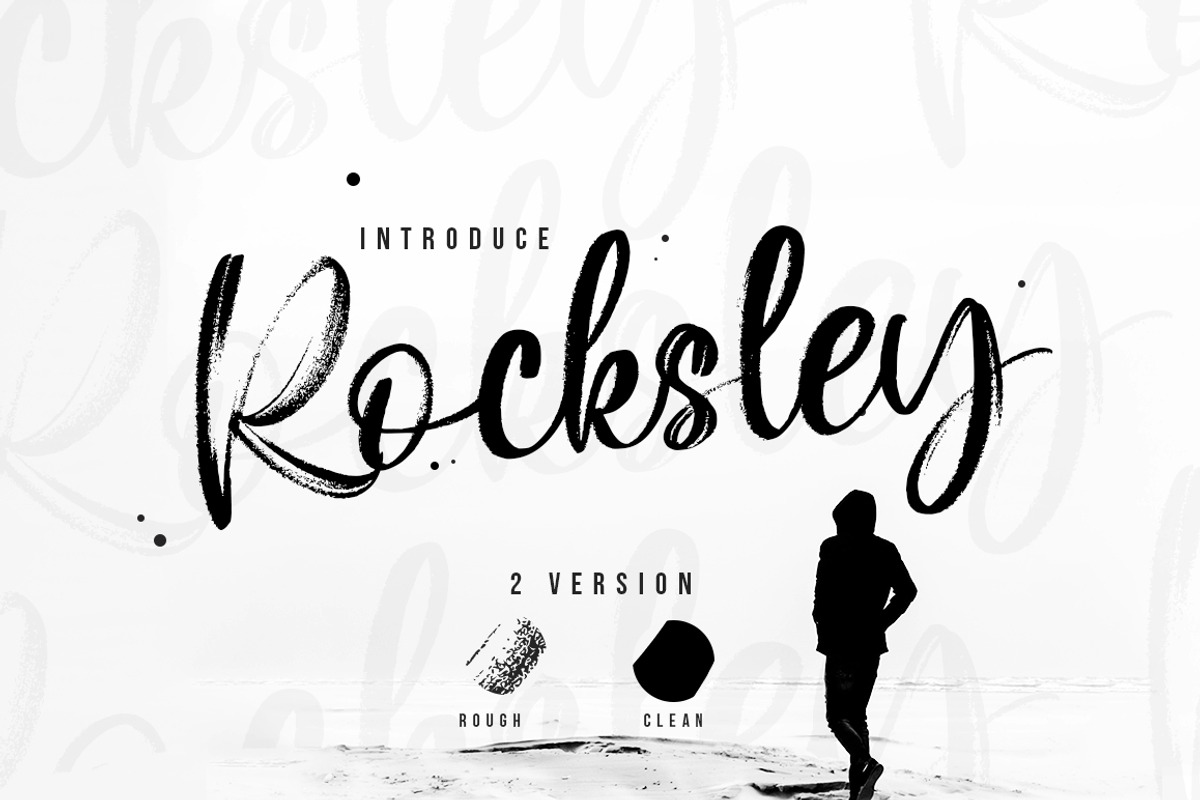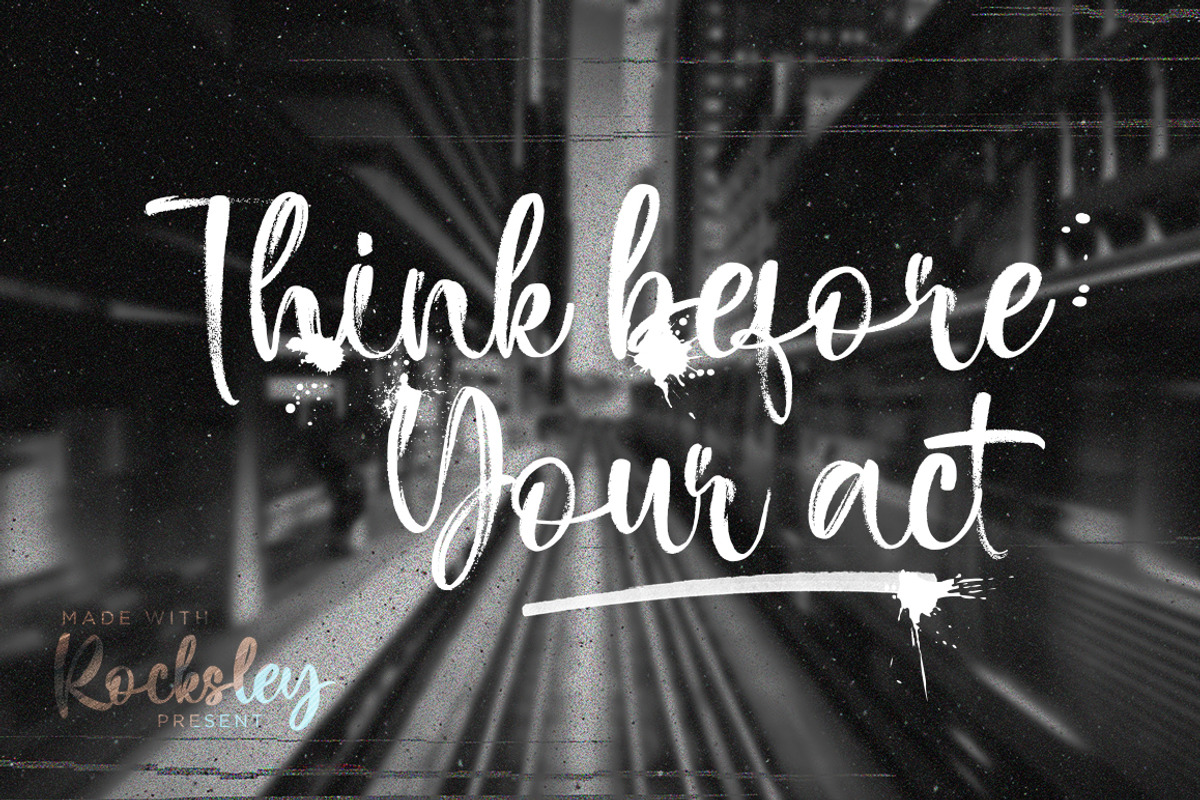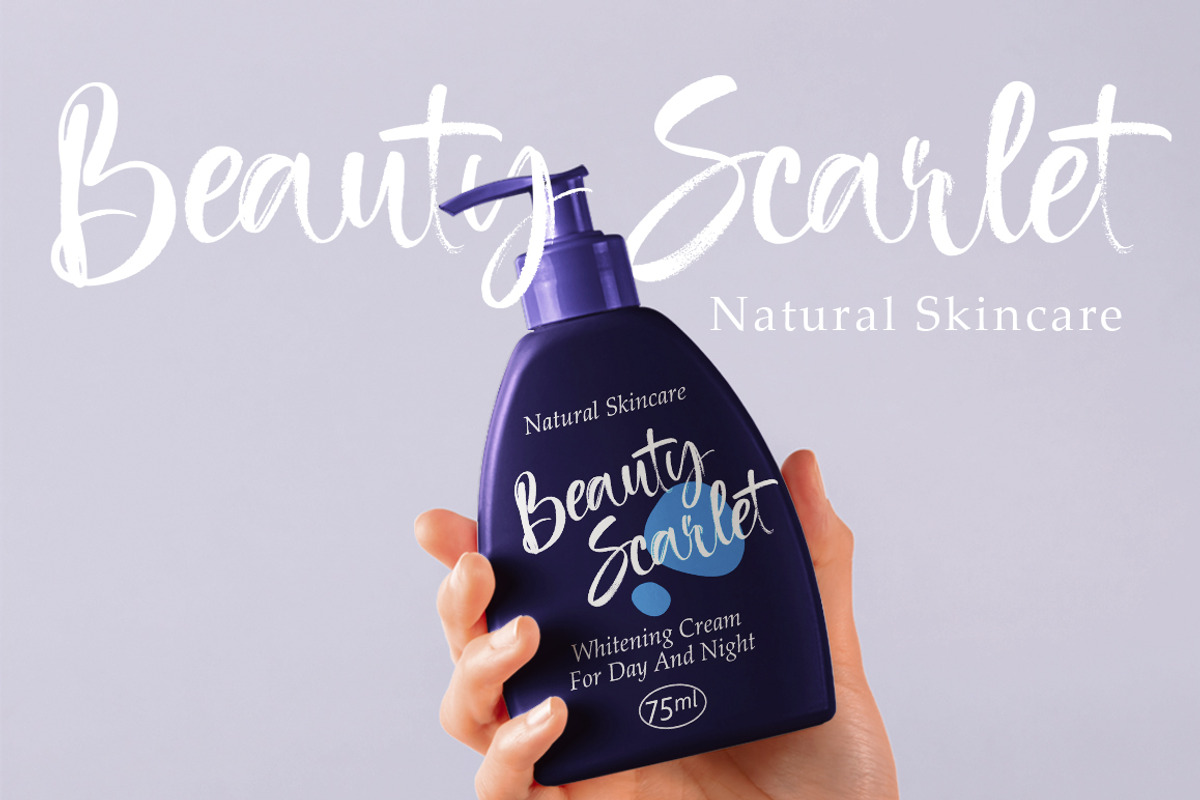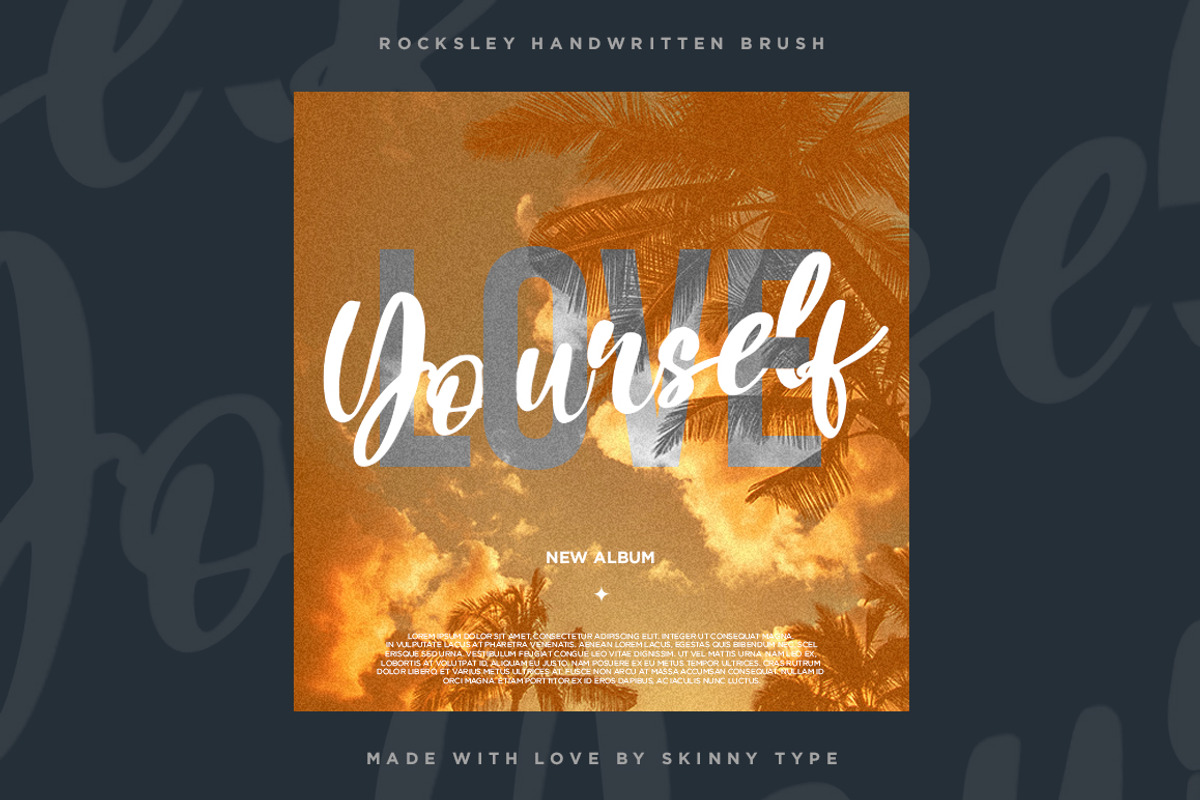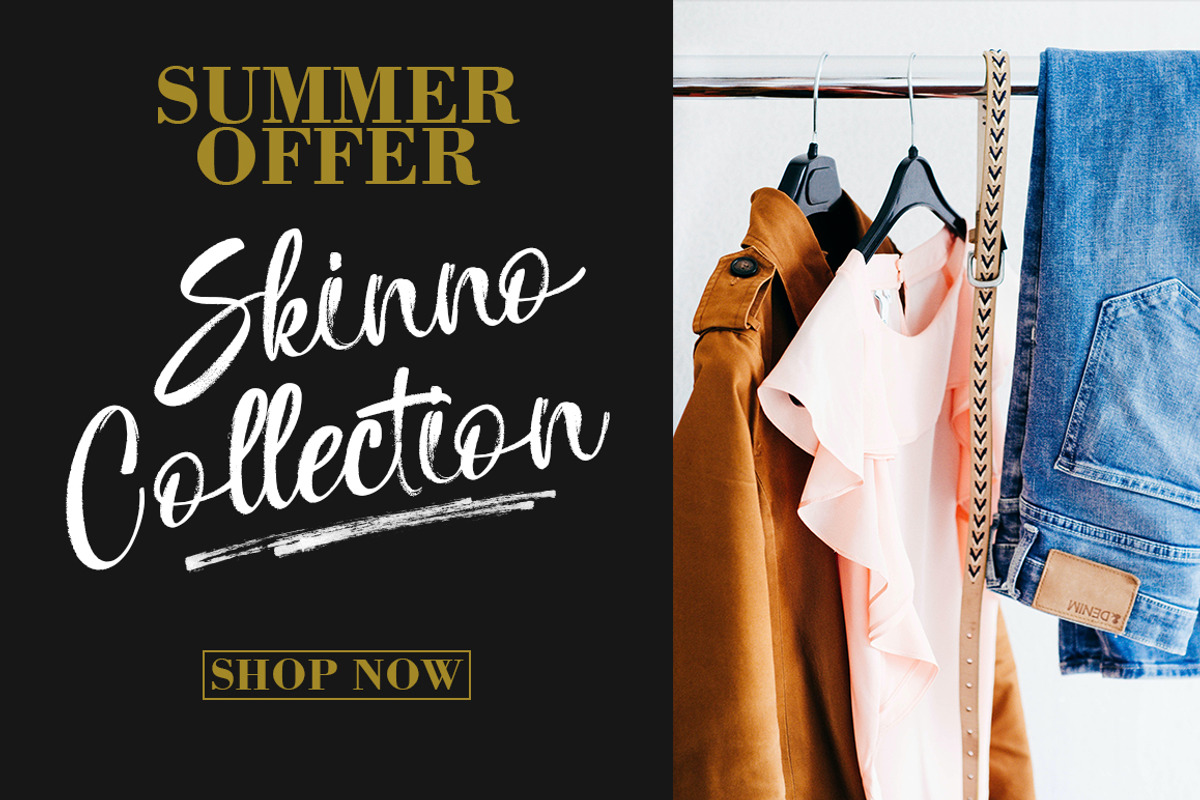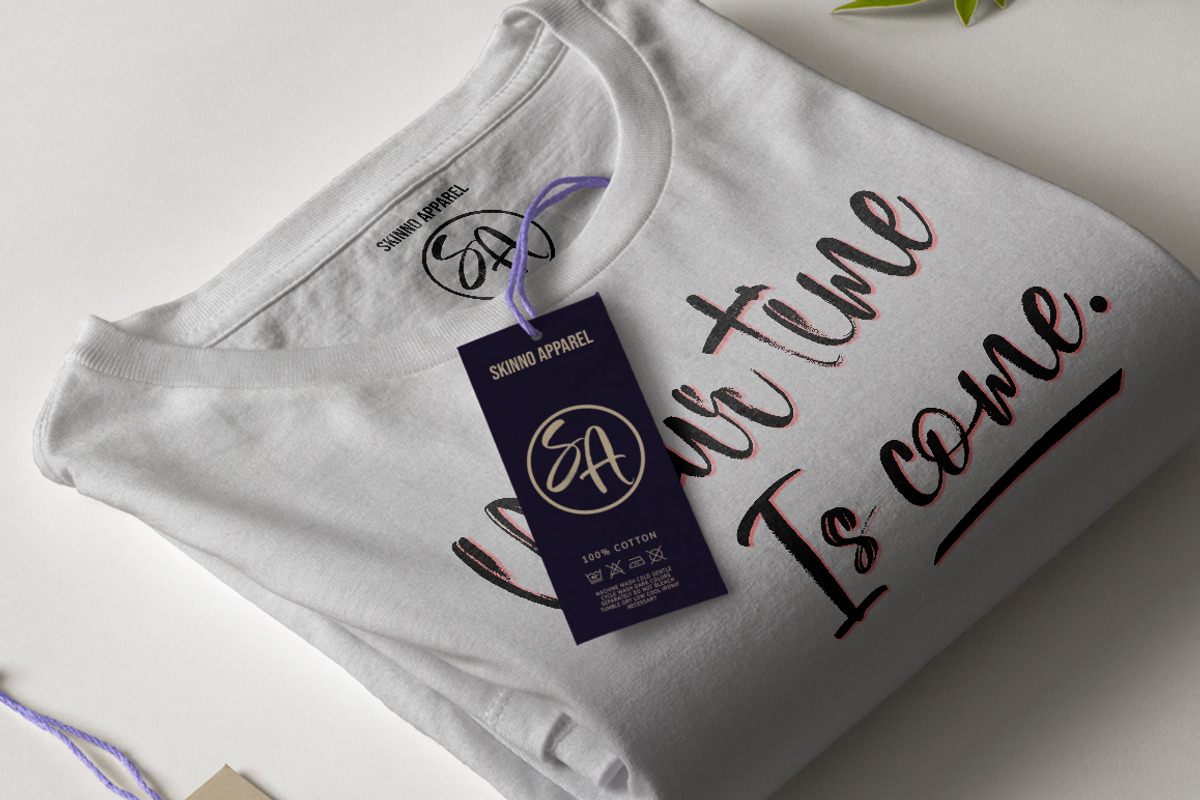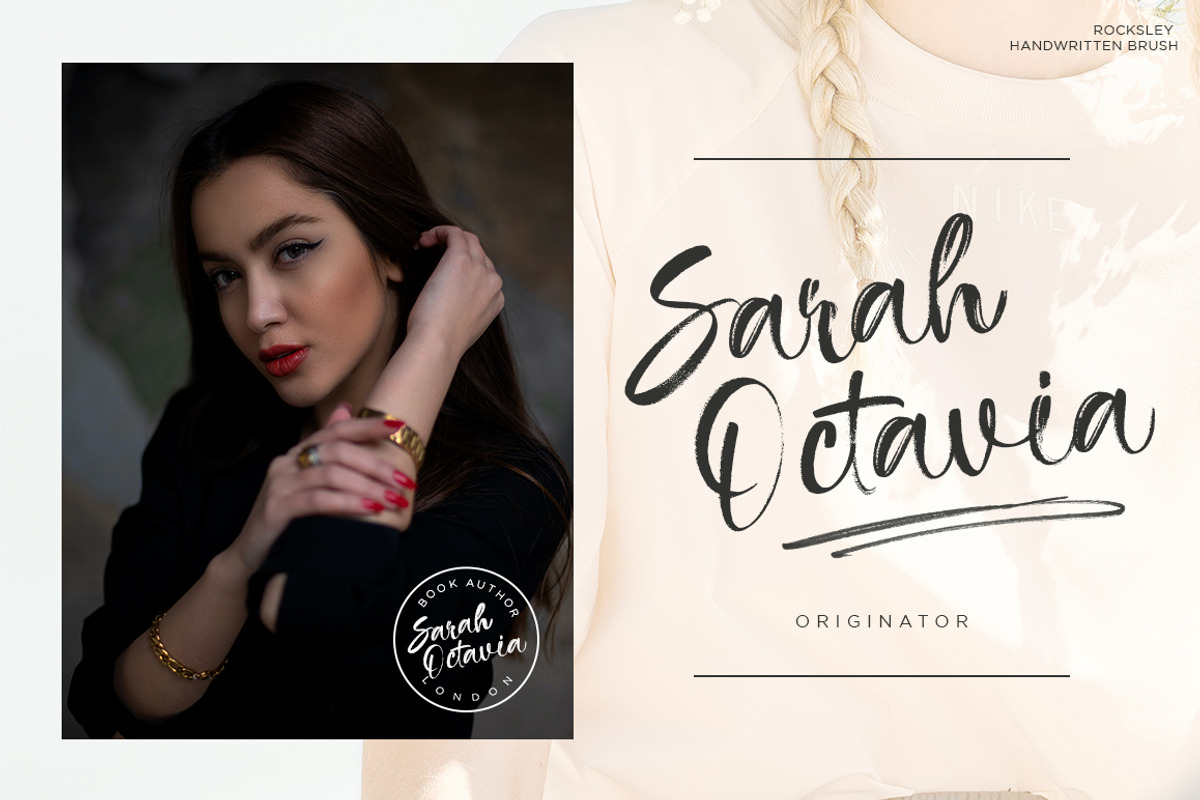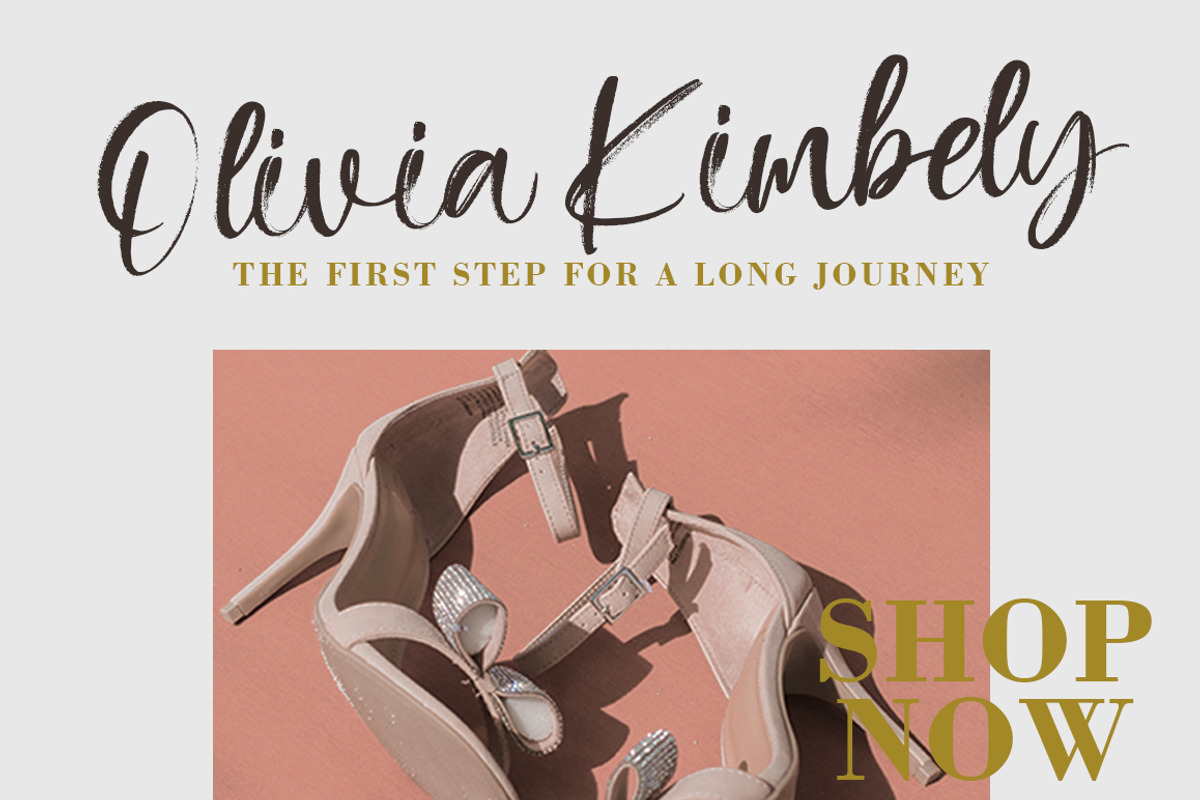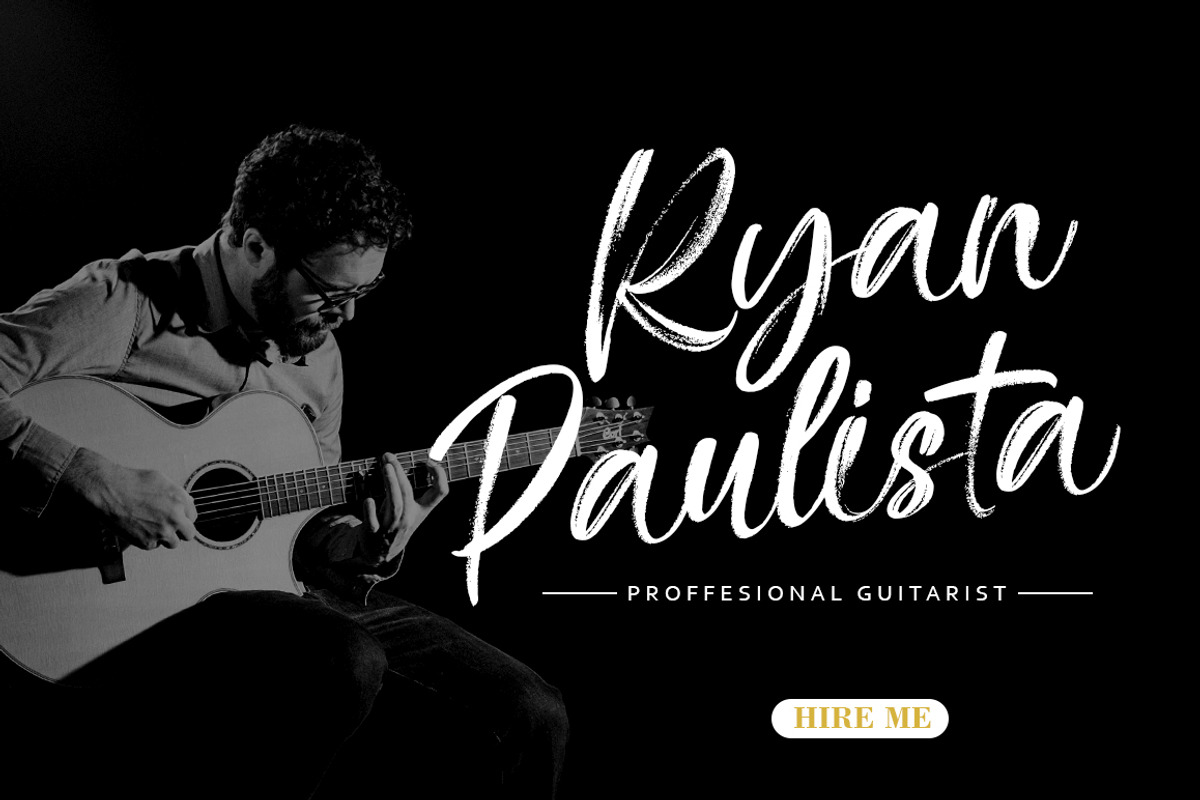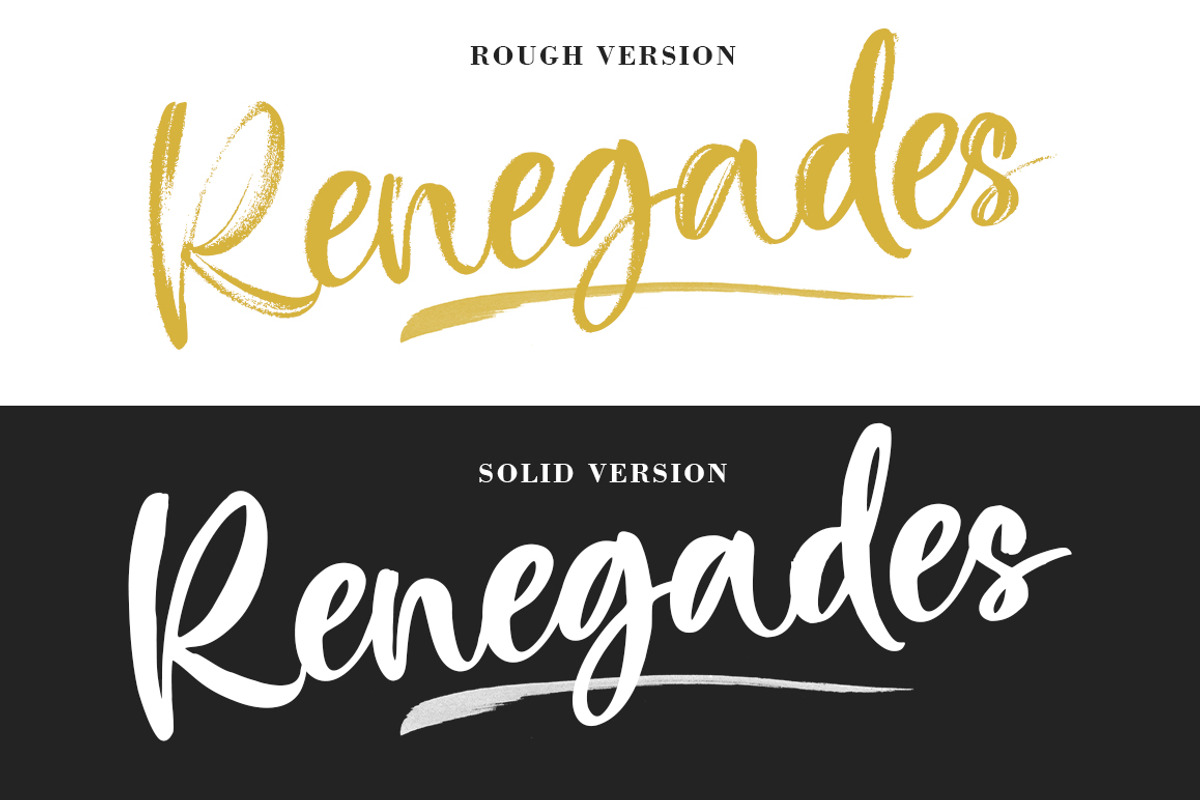
Rocksley - A Natural Brush Font
ROCKSLEY is a natural handwritten font, this font Is perfect for logo, invitation, stationery, wedding designs, social media posts, advertisements, product packaging, product designs, label, photography, watermark, special events or anything.
ROCKSLEY comes with 2 Style : Clean and Rough , this font contains full set of uppercase and lowercase letters, multilingual symbols, numerals, punctuation